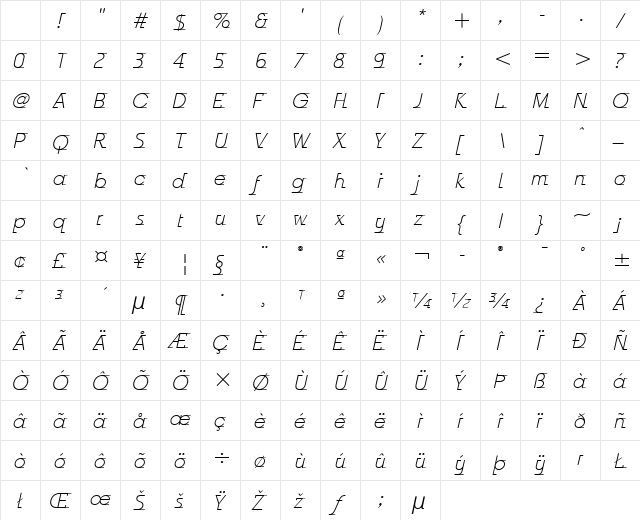
Complete Odyssee ITC Light Italic glyph index. Displaying only characters natively supported by Odyssee ITC Light Italic font.
Odyssee ITC is a composed and adaptable typeface that performs quietly and consistently across a wide range of design contexts. The slanted form adds forward momentum and visual energy. Its slender proportions lend an understated elegance to any composition.